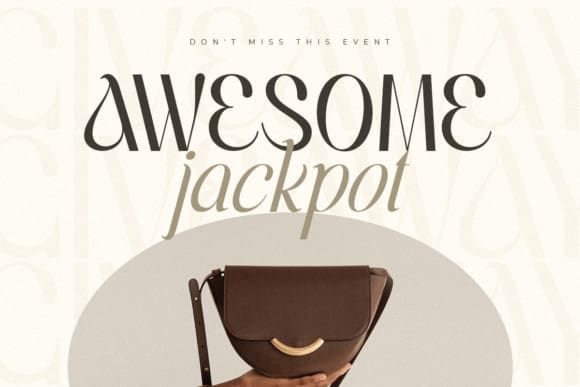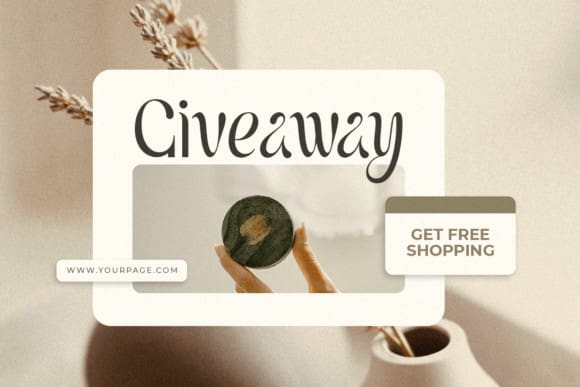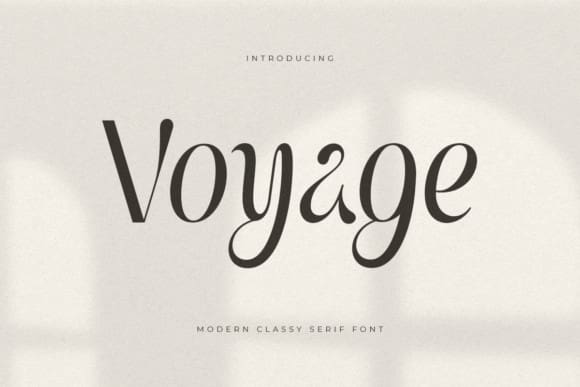
Voyage Display Font
Voyage Display Font, A Beauty serif font that we created special for elegant branding needs, with extra alternates in unique shape will be ready to add value of your brand. It so nice to leverage designer or product owner that need solutions to make their design look more classy and modern. And specially for Voyage font, We prepared any alternate characters to help you create unlimited variations for your creative needs.